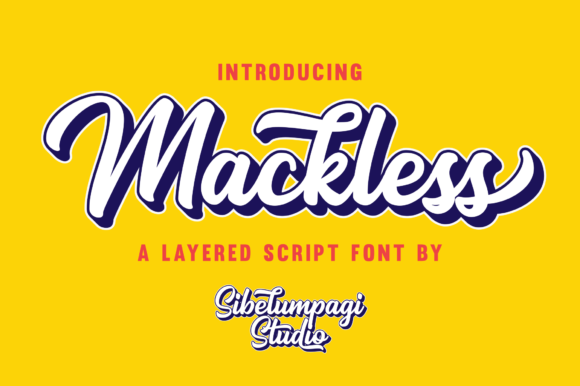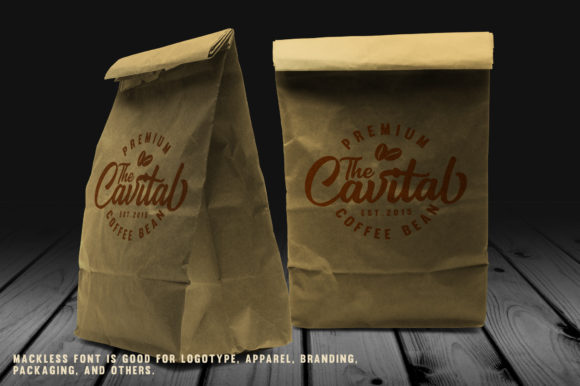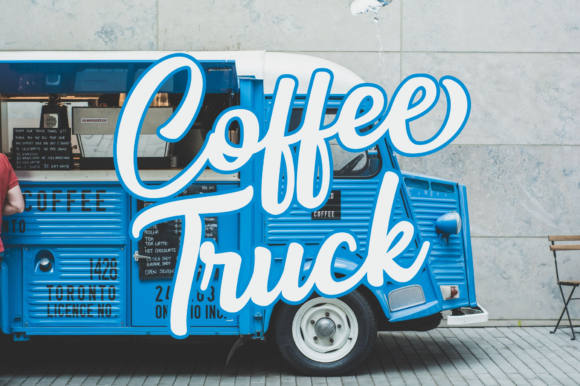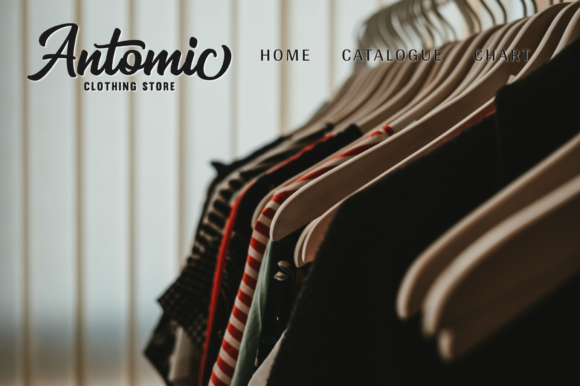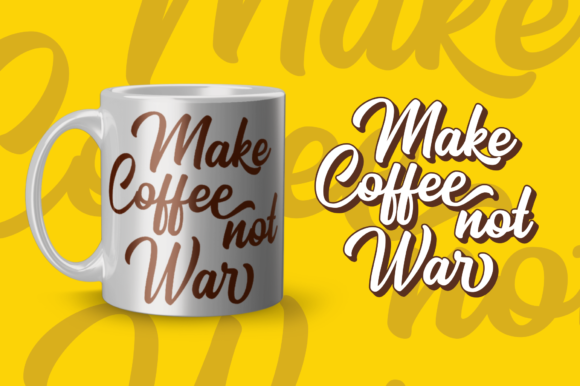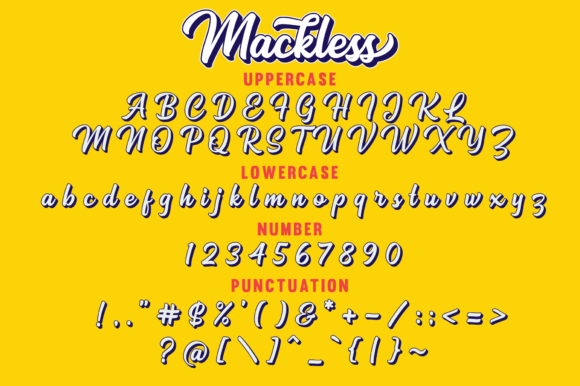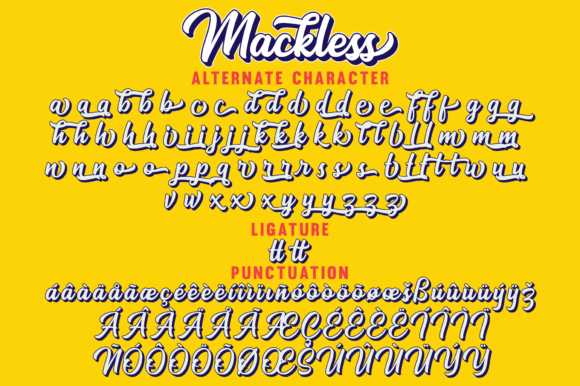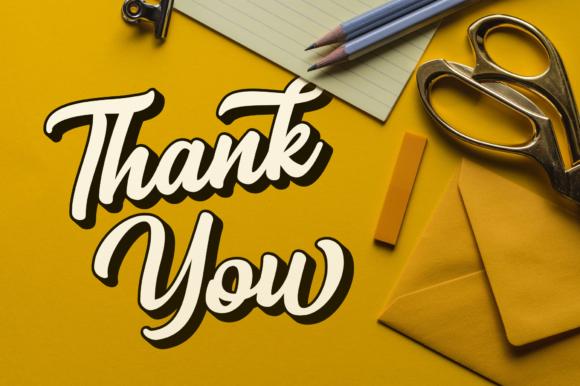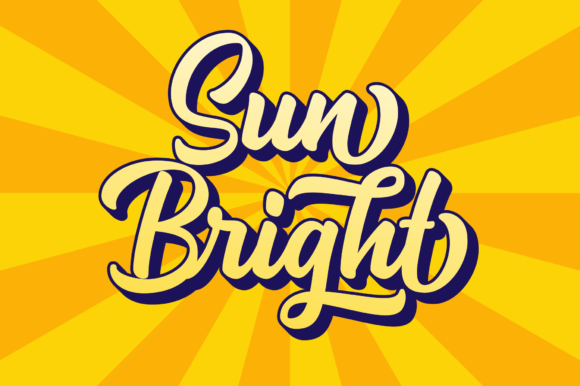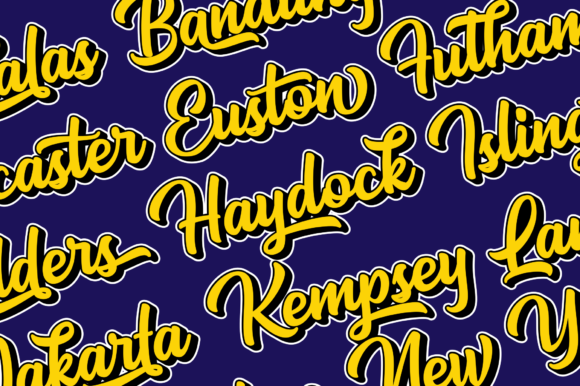
Mackless Font
About Mackless Font
Inspired by retro-logos, Mackless is a fun and bold handwritten font with a unique charm. It’s a true stand out-font, and will inspire any new creative idea.